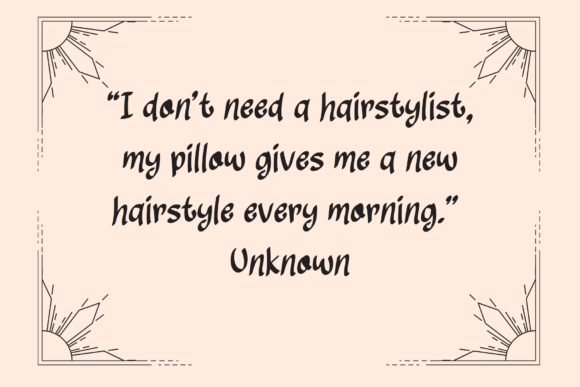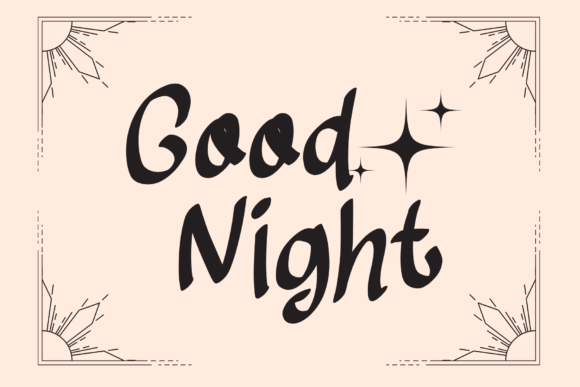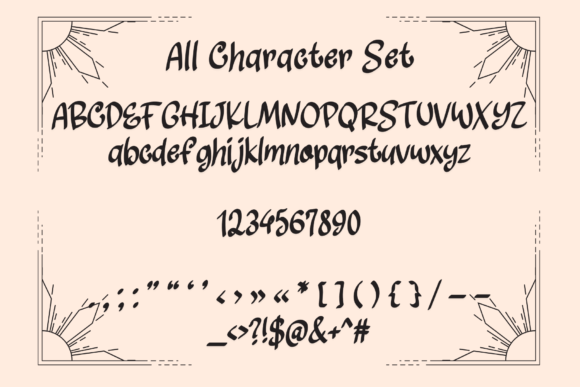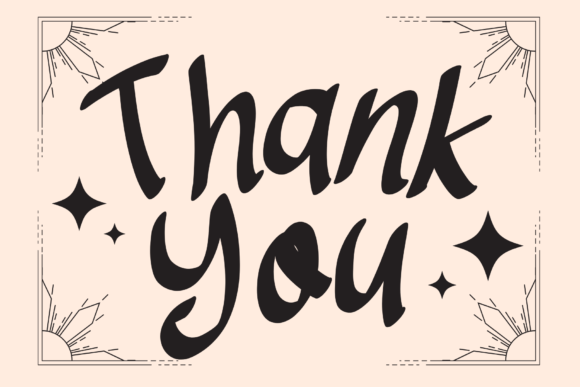
The Gentleman Font: A Playful and Authentic Addition to Your Designs
I’ll never forget the time I was working on a project for a client who wanted a logo that exuded warmth and friendliness. I had spent hours browsing through font libraries, but nothing seemed quite right. That was when I stumbled upon the Gentleman font. Its playful, handwritten charm instantly won me over, and I knew I had found the perfect fit. In this article, I’ll share my experience with the Gentleman font, its features, and how to make the most of it in your designs.
An Honest Review of Gentleman Font
What I Love About Gentleman Font
• ✨ Playful and authentic feel that adds a personal touch to any design
• ✅ Highly legible, even at smaller font sizes
• 🎨 Versatile and suitable for a wide range of projects, from blog posts to logos and branding
• 💕 Emotive and engaging, perfect for designs that require a human touch
While the Gentleman font is an excellent choice for many projects, there are a few things to keep in mind:
• 🤔 The font may not be the best choice for very formal or corporate designs, as it has a more casual feel.
• ⚠️ Some users have reported issues with kerning, but this can usually be adjusted in design software.
The Backstory of Gentleman Font
The Gentleman font was designed with the intention of creating a playful and authentic font that would add a personal touch to any design. The designer aimed to create a font that would be both highly legible and emotive, making it perfect for a wide range of projects.
Q: What type of projects is Gentleman font best suited for?
A: Gentleman font is versatile and can be used for a wide range of projects, including blog posts, logos, branding, ads, invitations, greeting cards, planners, photo albums, decorations, and more.
Q: Is Gentleman font suitable for very formal or corporate designs?
A: While Gentleman font is an excellent choice for many projects, it may not be the best choice for very formal or corporate designs, as it has a more casual feel.